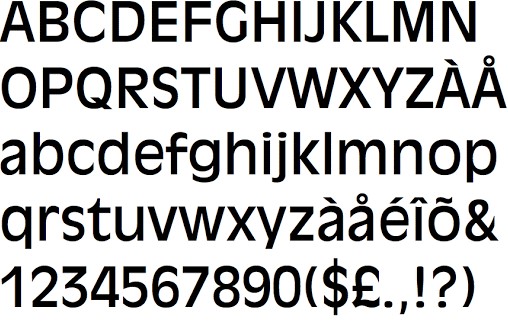
The Antique Olive Font is a sans-serif typeface created by the renowned French type designer, Roger Excoffon. In 1960, he introduced Nord and Nord italic.
Both of these are great choices for advertising, signage, and poster projects. The compact and bold weight of this typeface was designed in 1963 and can be paired with kawaii font and used for all sorts of design.
This typeface keeps getting updating till the year 1969 at that time all the different weights were released. This regular typeface is also great because of the bold and italic features also.